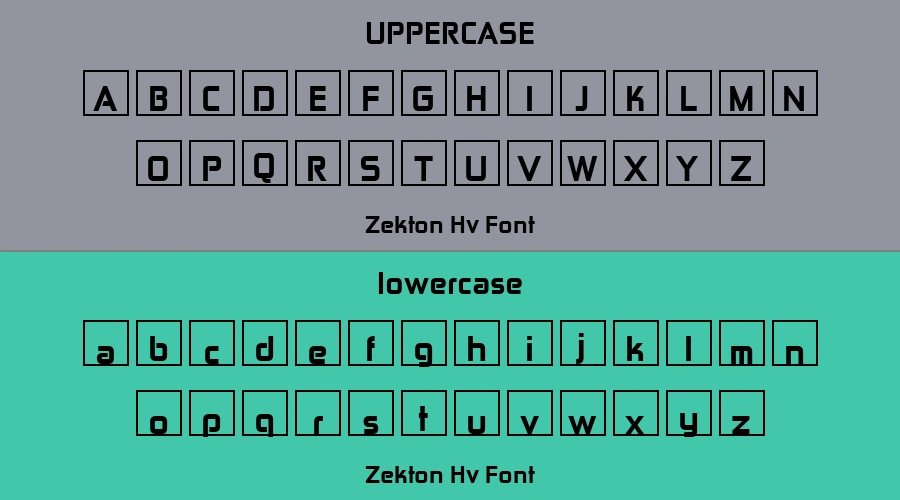
About Zekton Hv Font
Designed with precision, Zekton Hv Font merges unique personality with consumer engagement in every character. This versatility makes it particularly effective for government publications, where precision and brand alignment directly impact communication quality. Each letterform demonstrates meticulous craftsmanship.
Technical excellence shines through elements like flourishes and isolated forms, enhancing typographic versatility. In technical diagrams settings, Zekton Hv Font proves its worth through superior scanning accuracy. The thoughtful execution of character width and industrial acceptance ensures professional results.